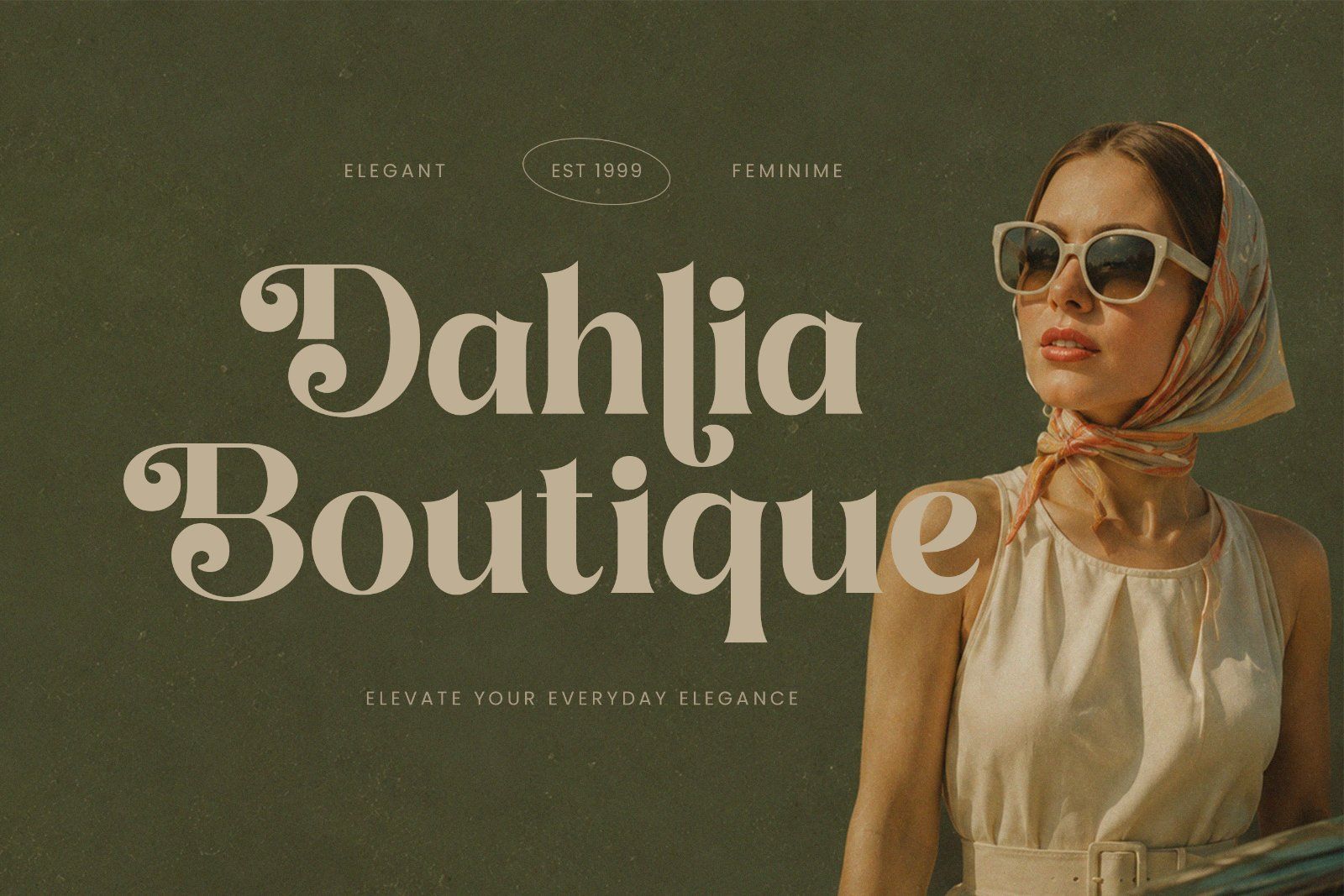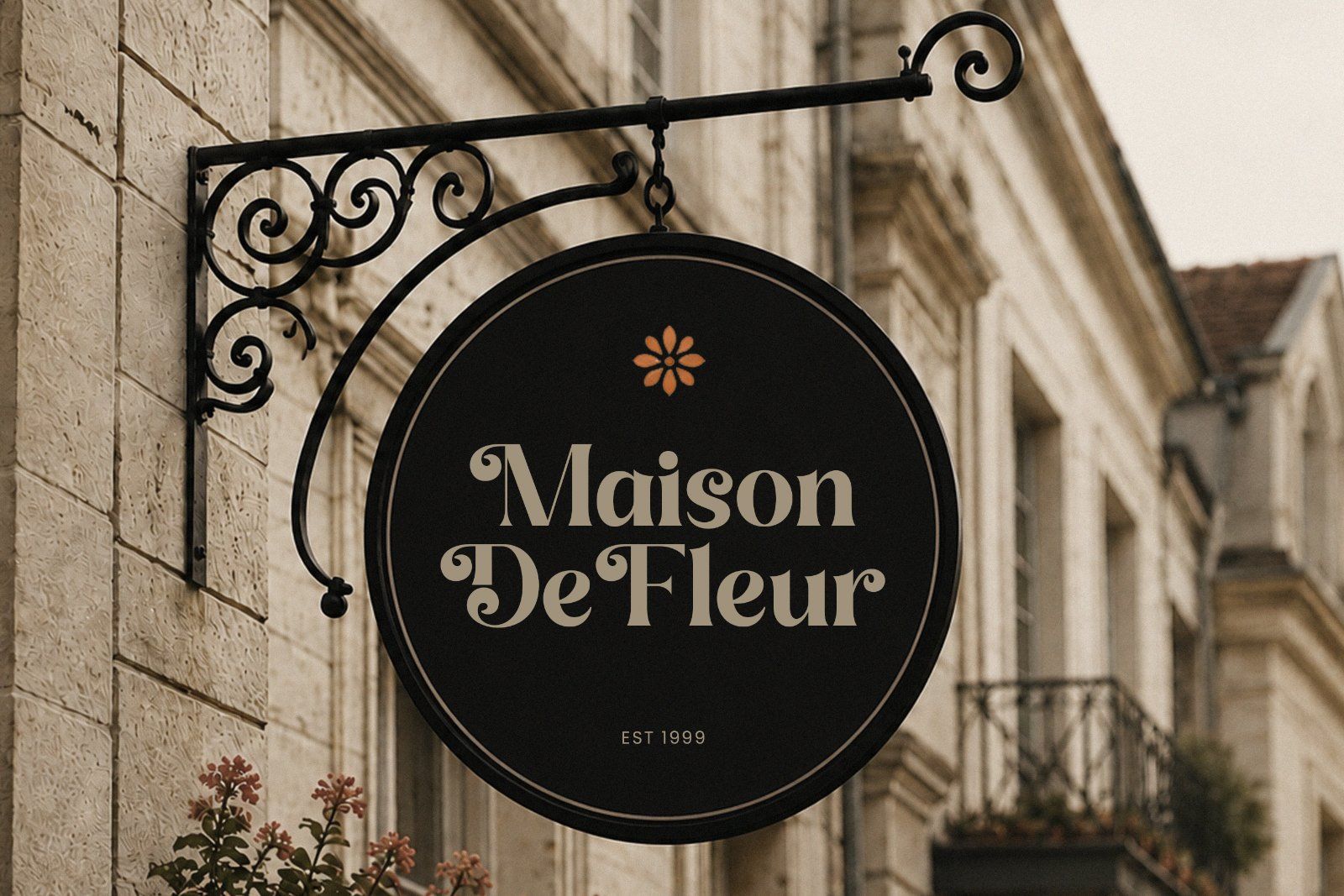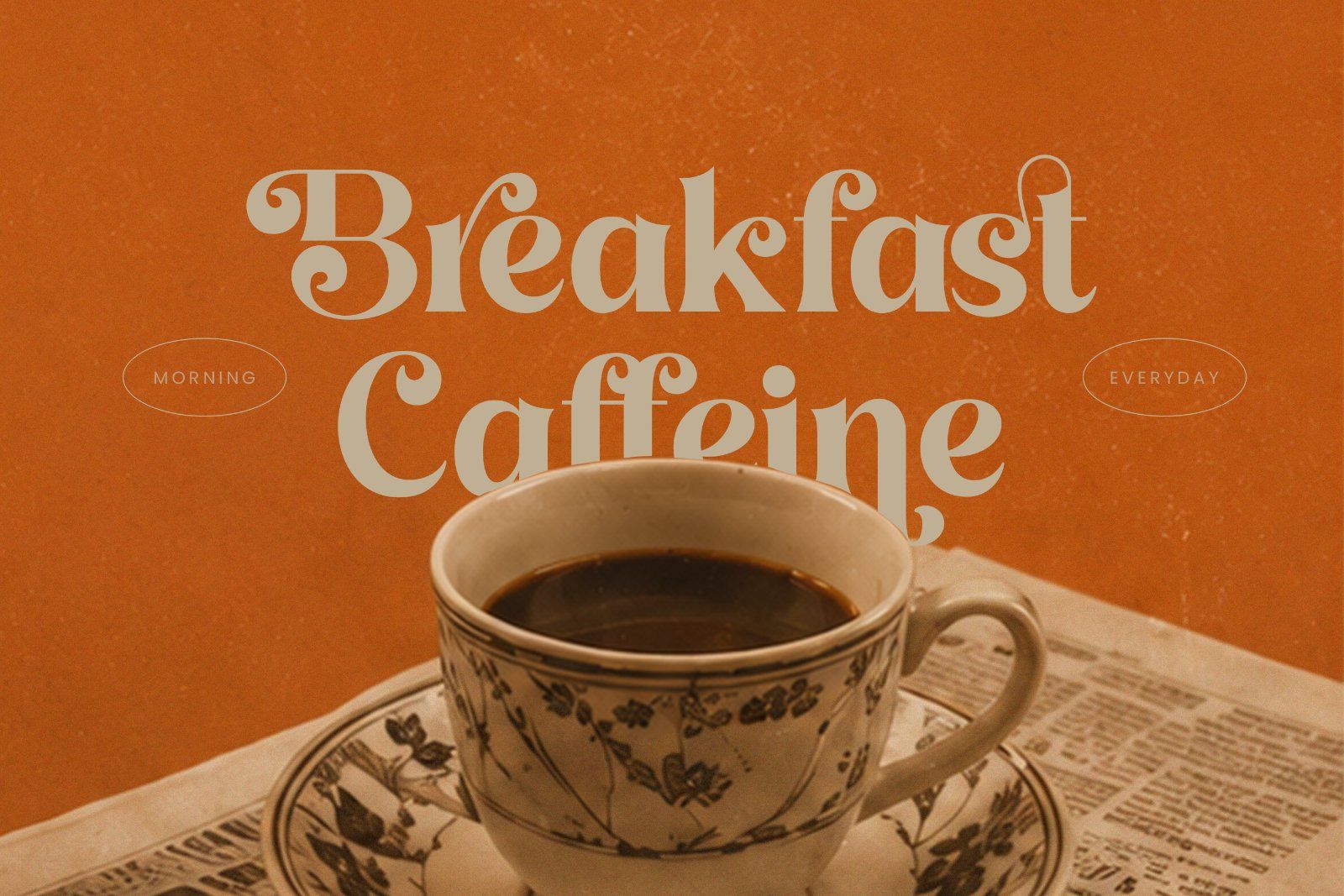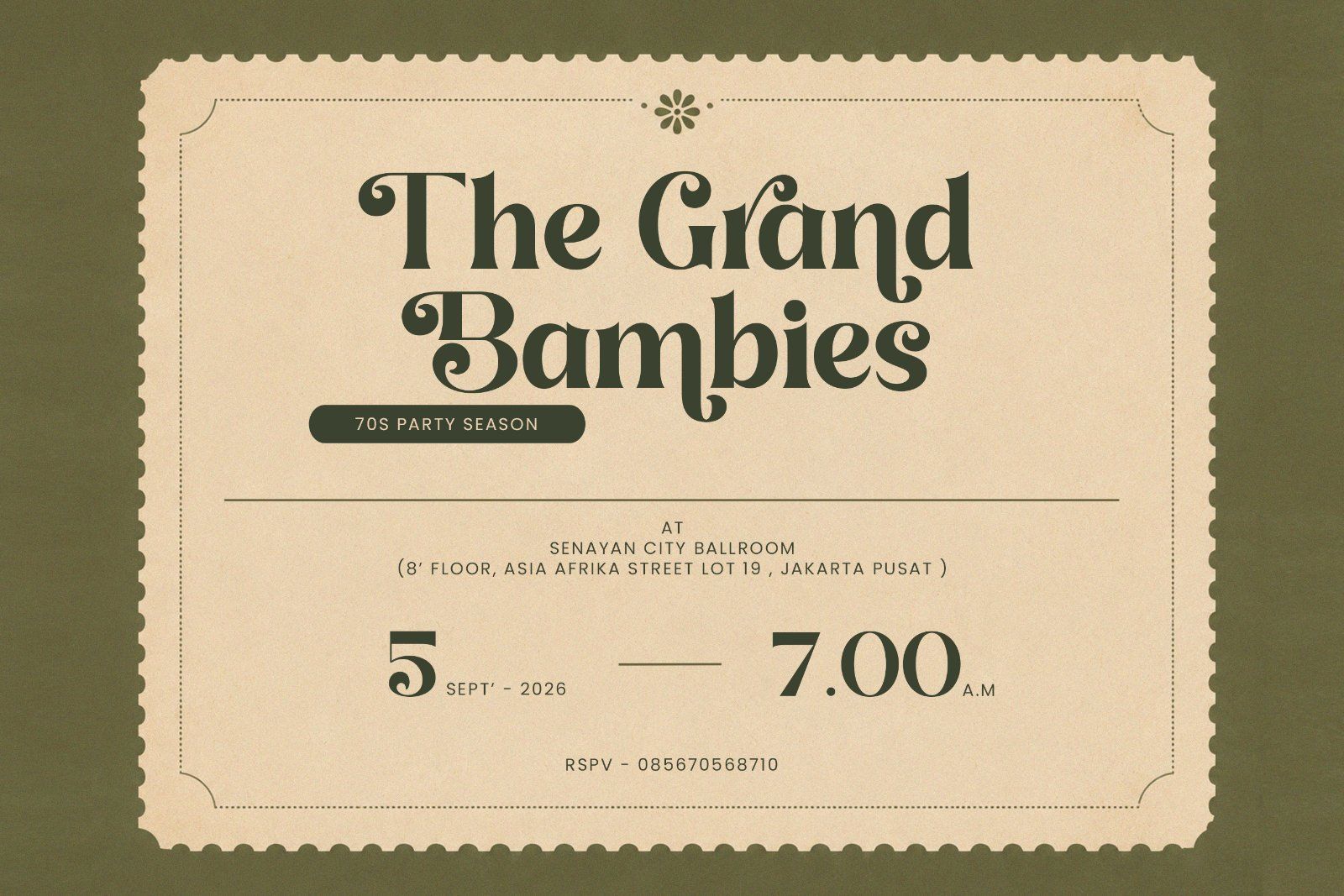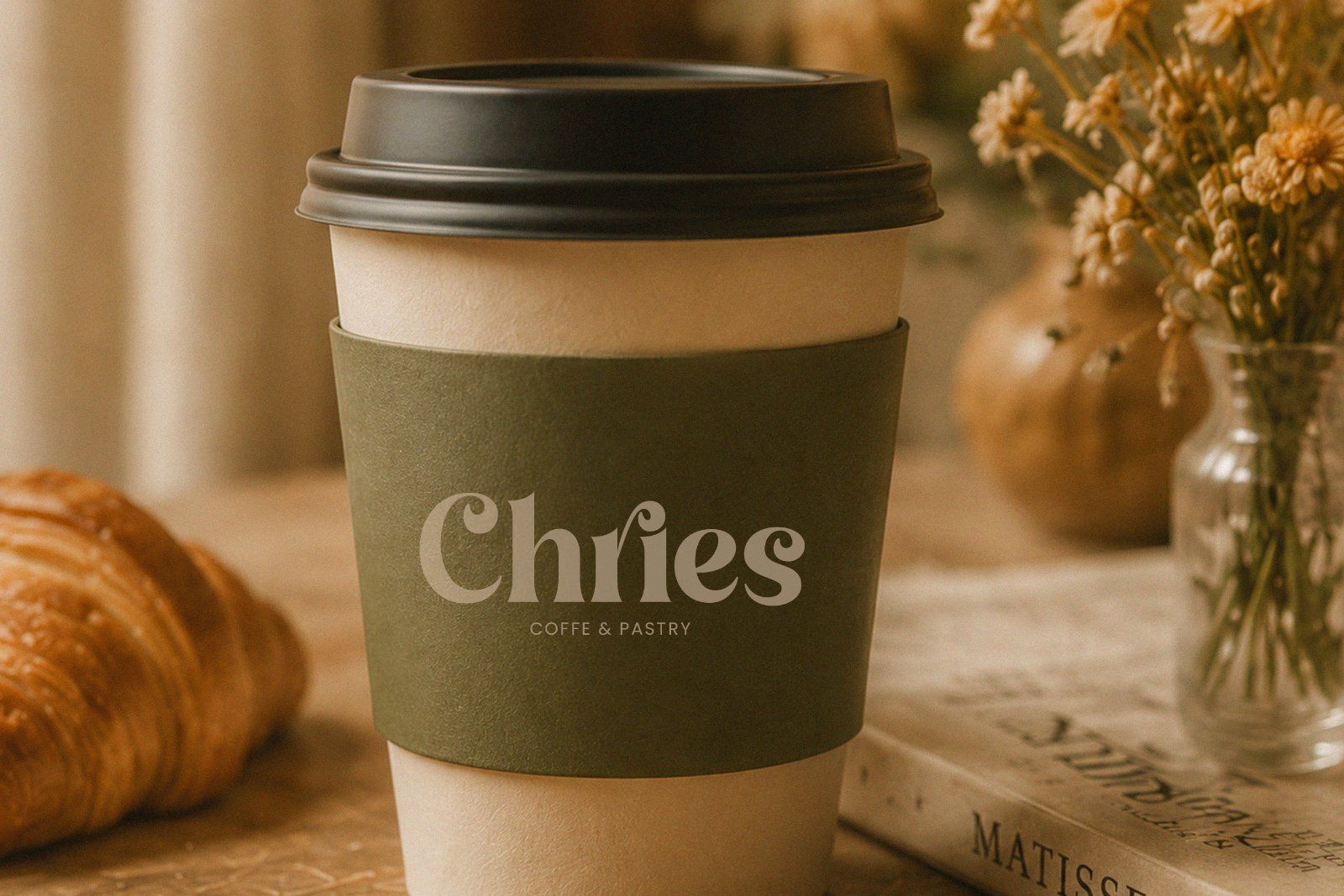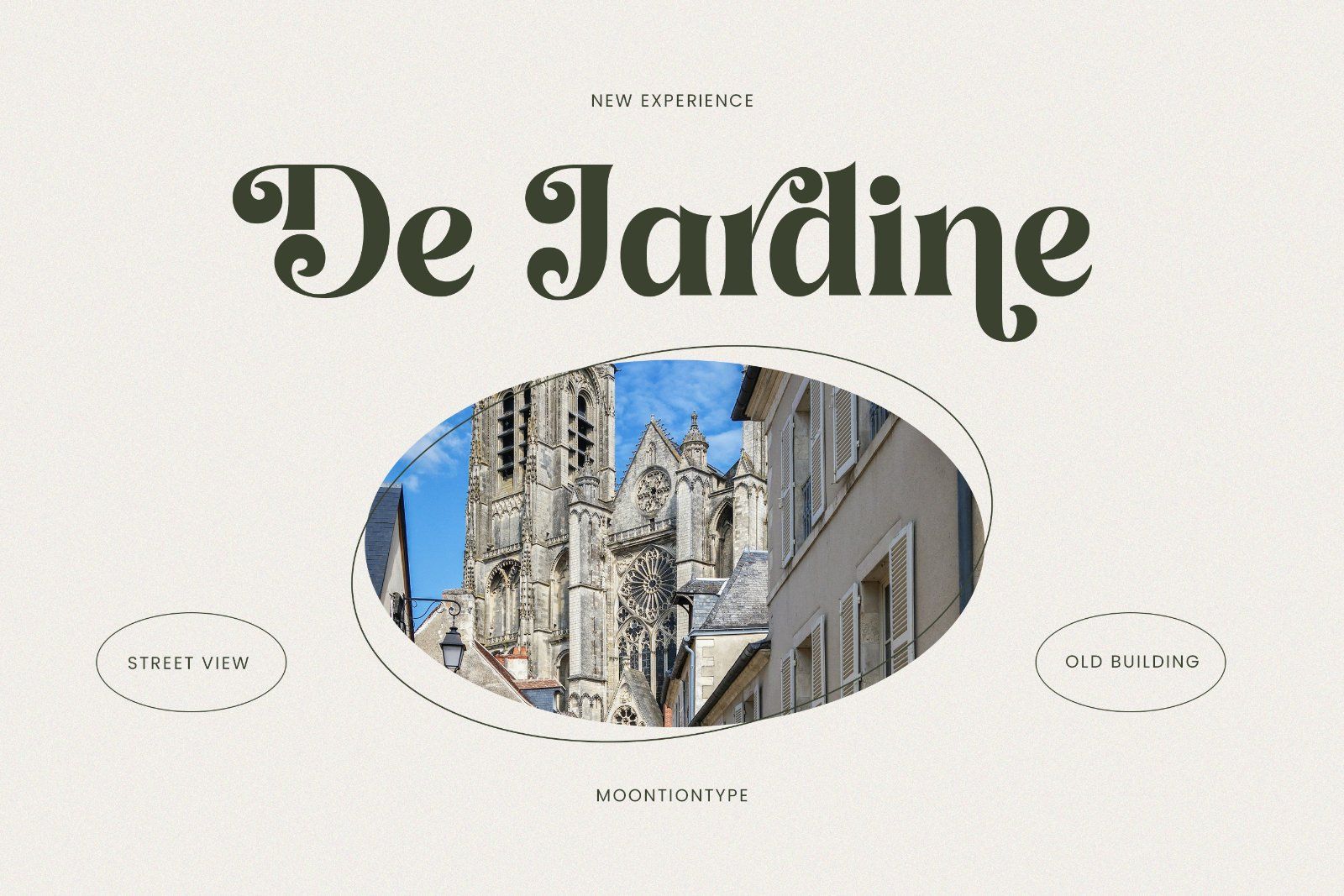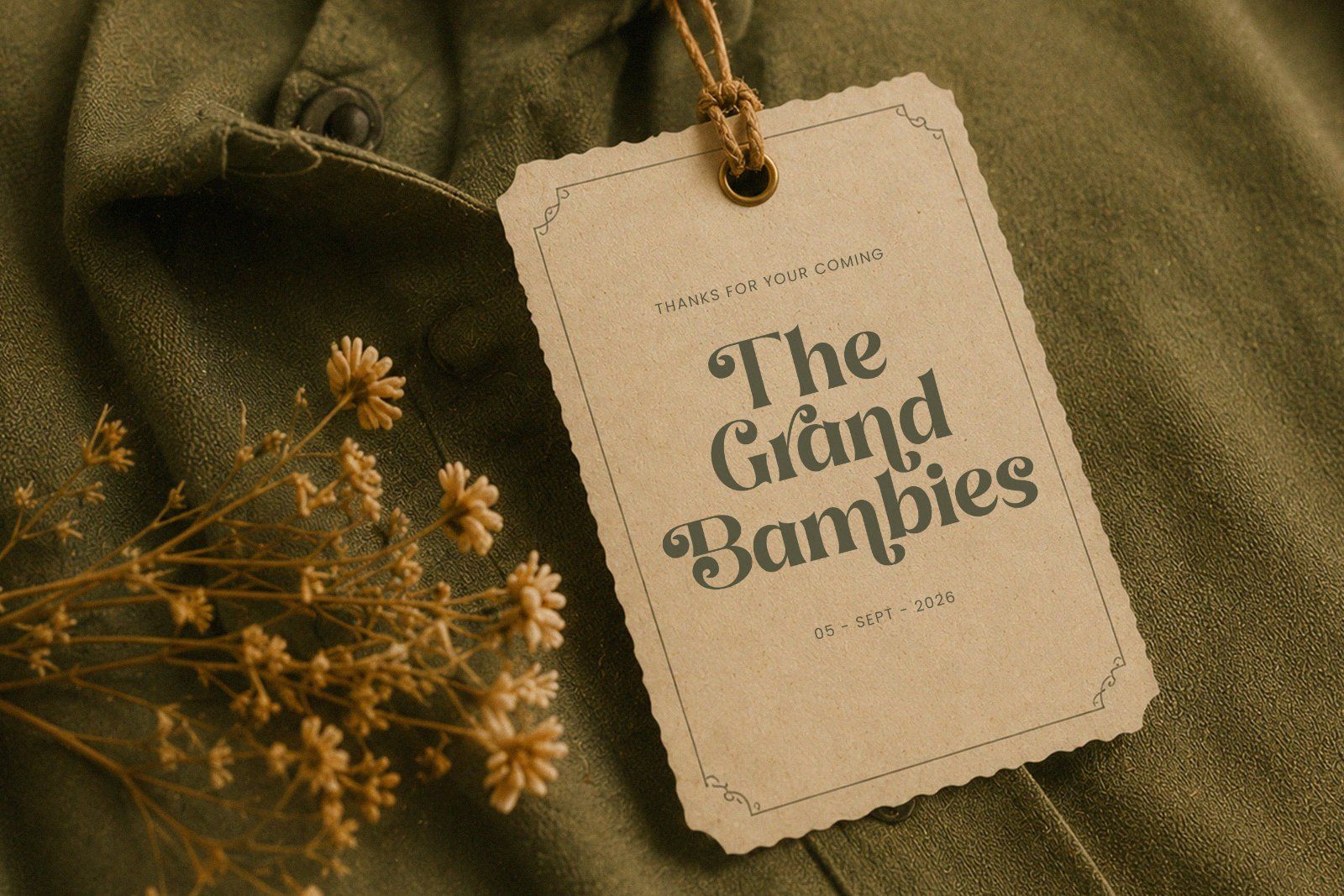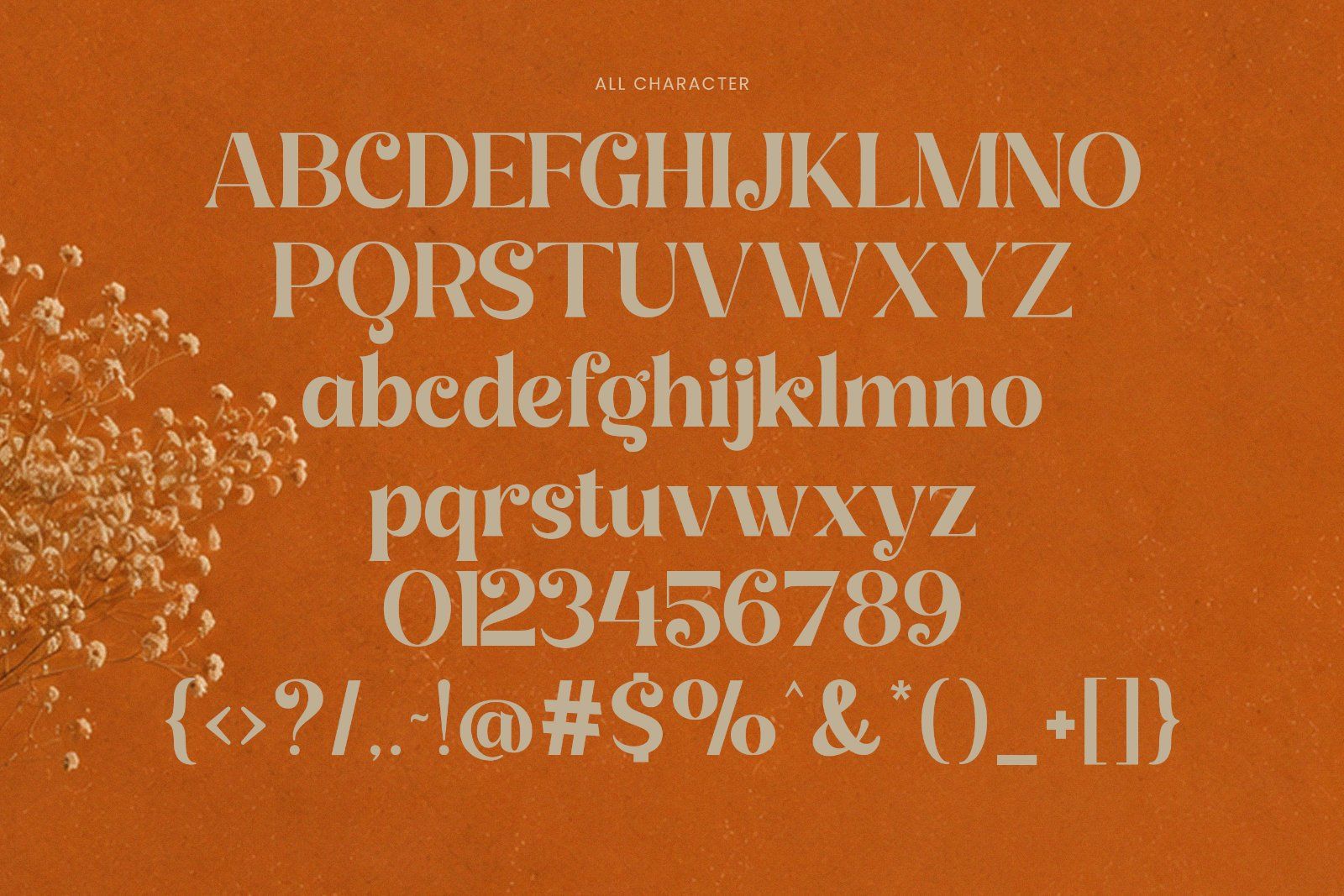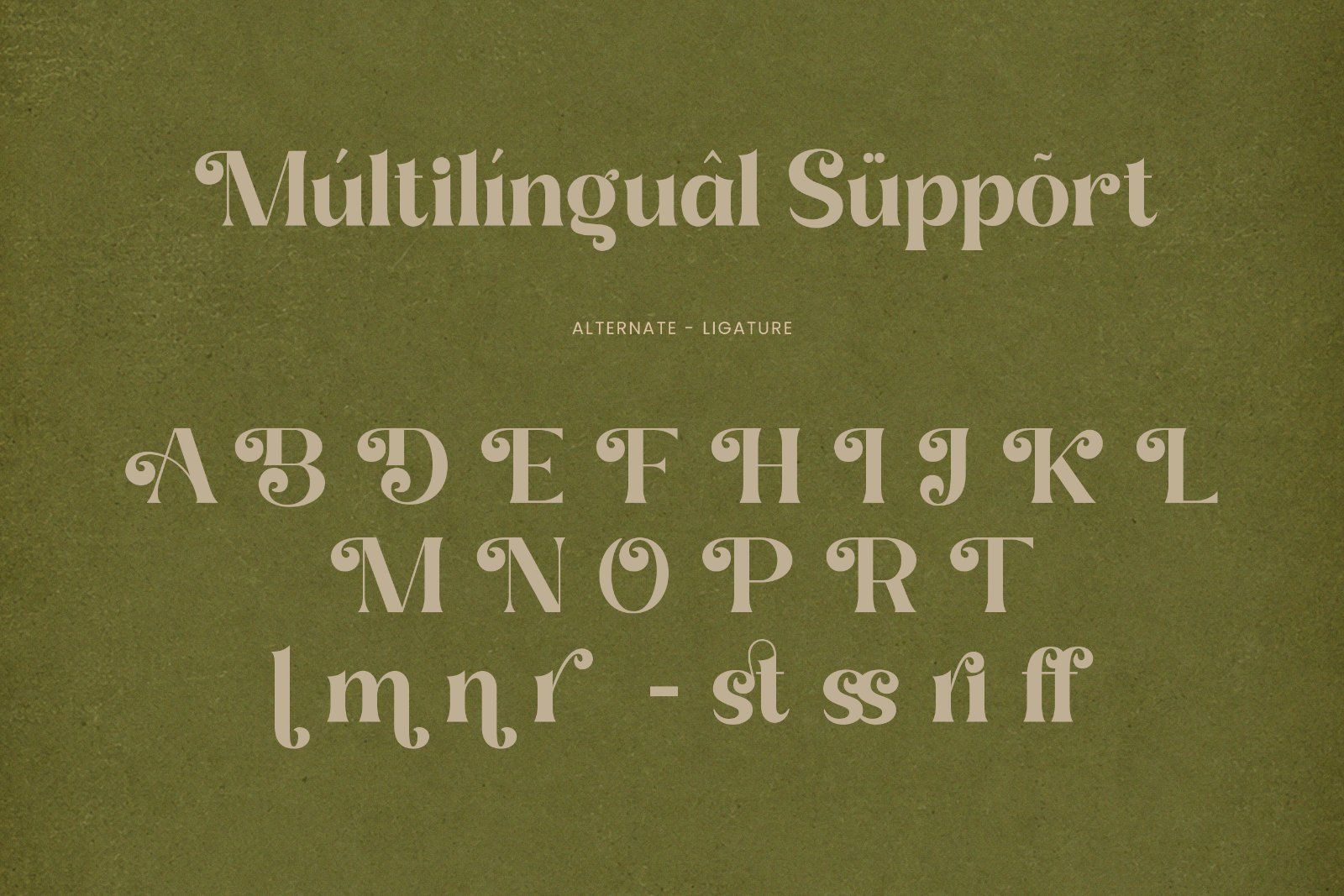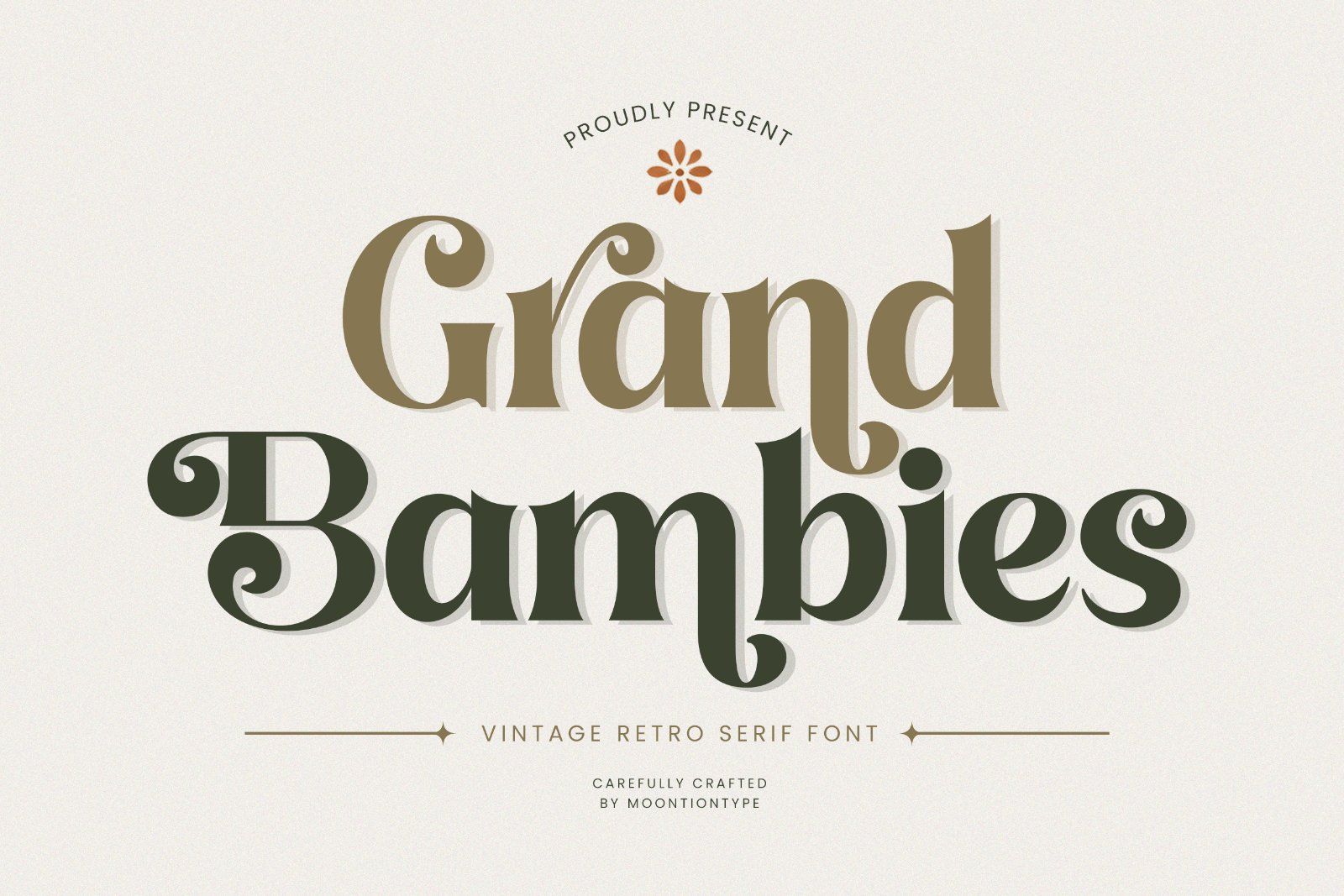
Grand Bambies, a bold retro serif font inspired by timeless vintage typography with elegant curves and classic decorative details. Designed to bring a nostalgic yet sophisticated feel, this font is perfect for branding projects, logo design, packaging, editorials, social media, posters, and stylish vintage-inspired creations.
With its unique character shapes and strong serif style, Grand Bambies creates eye-catching typography that feels classy, artistic, and memorable.
Perfect For :
• Vintage Branding
• Retro Logos
• Packaging Design
• Editorial & Magazine Layouts
• Boutique Branding
• Restaurant & Café Branding
• Posters & Headlines
• Fashion Projects
• Social Media Graphics
• Wedding & Event Designs
Font Features :
• Numbers & Punctuation
• Unique Retro Alternates
• Decorative Serif Details
Why Choose Grand Bambies?
Grand Bambies was carefully crafted to combine retro charm with modern usability. Its bold personality and elegant vintage aesthetics make it ideal for designers and creatives looking to create standout branding and stylish typography with a nostalgic touch.
Whether you're creating luxury packaging, retro posters, café branding, or editorial layouts, Grand Bambies adds warmth, personality, and timeless elegance to every design.